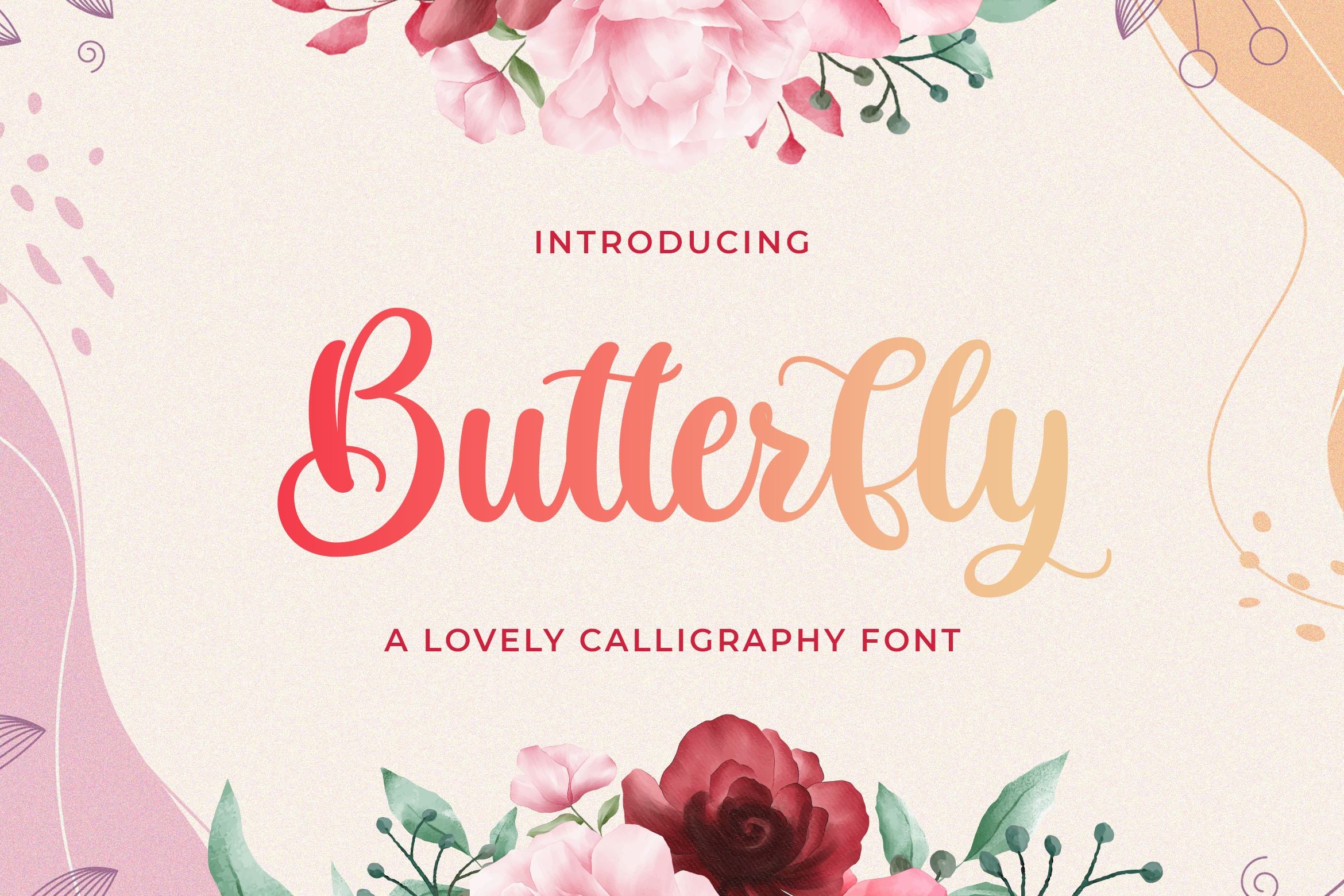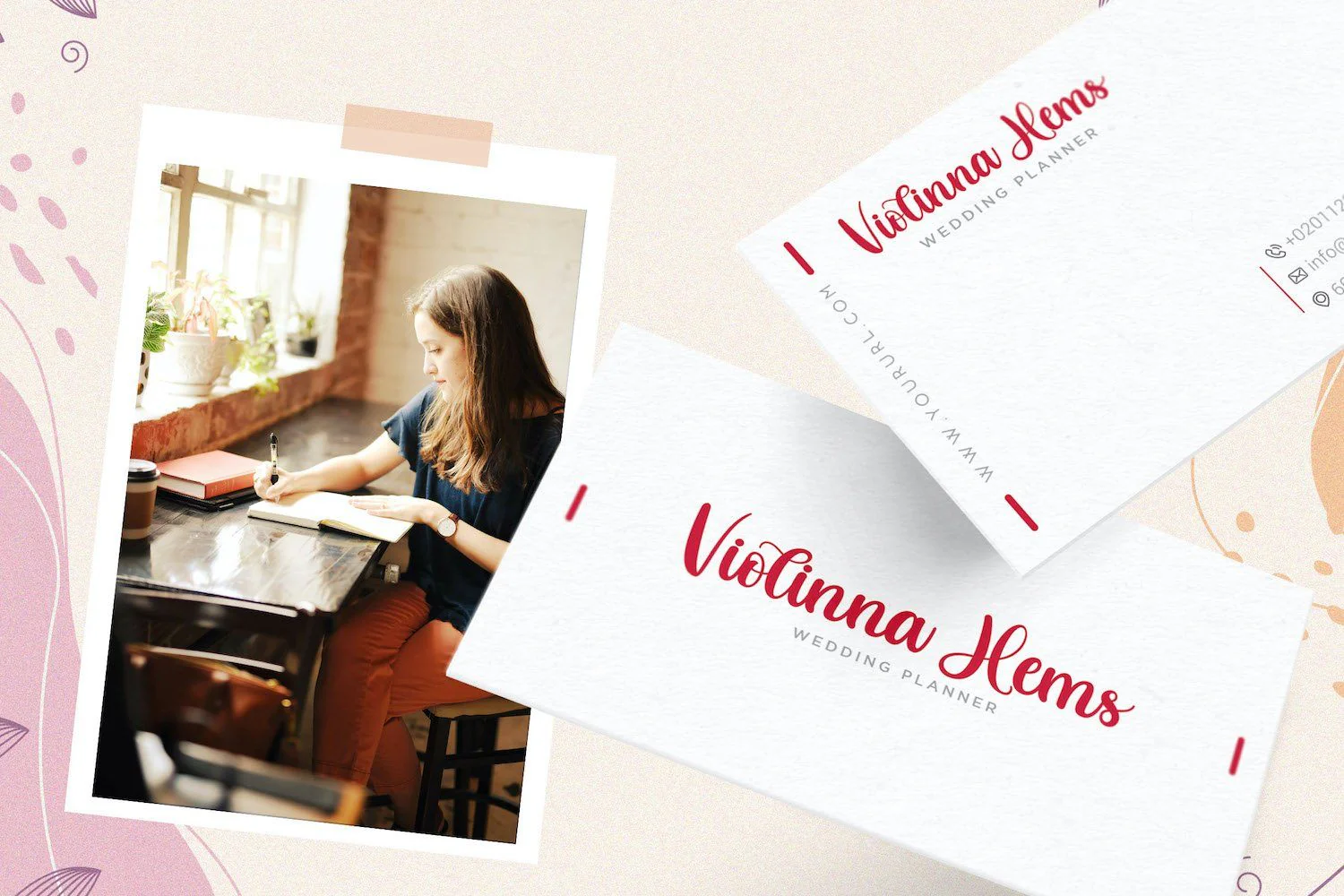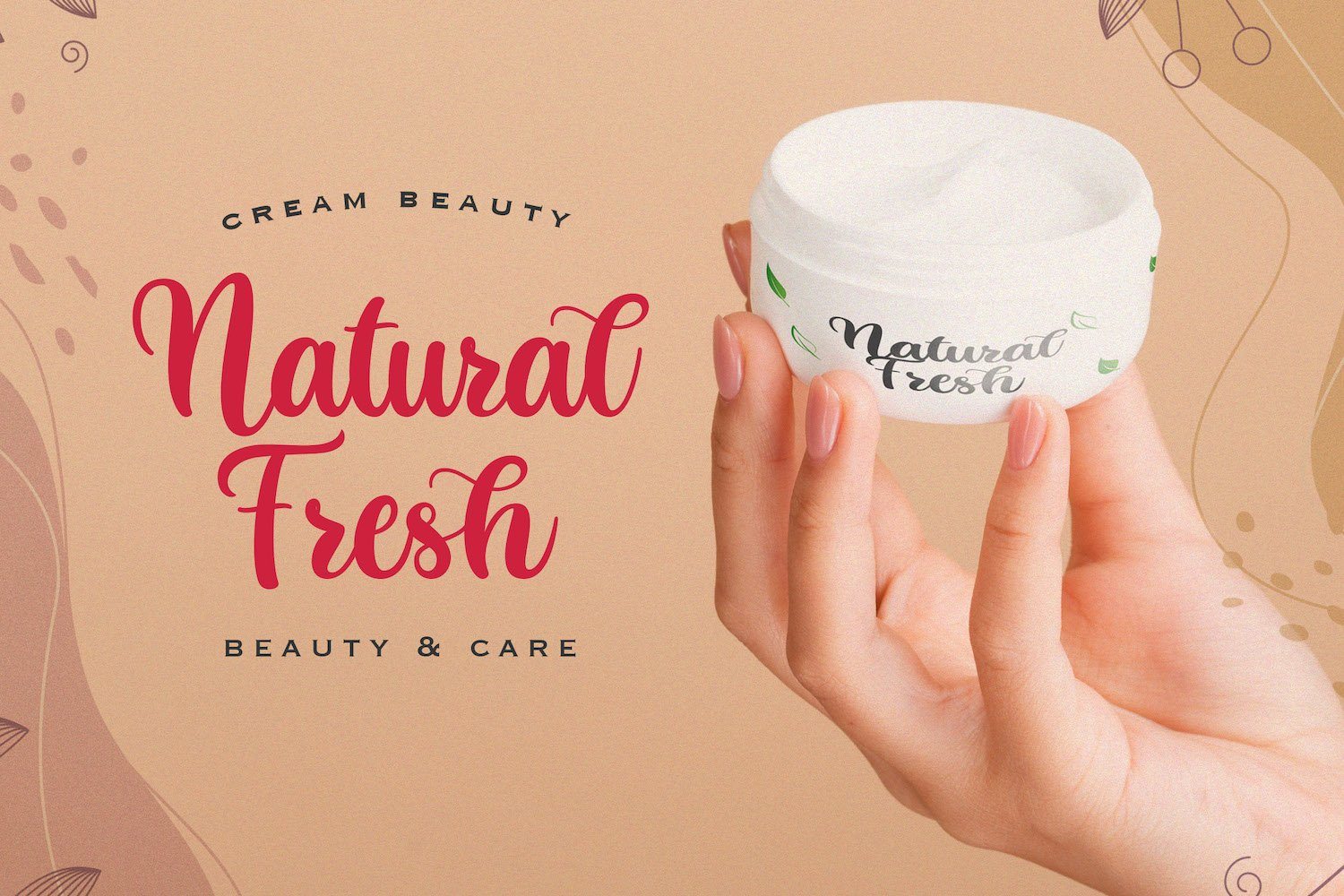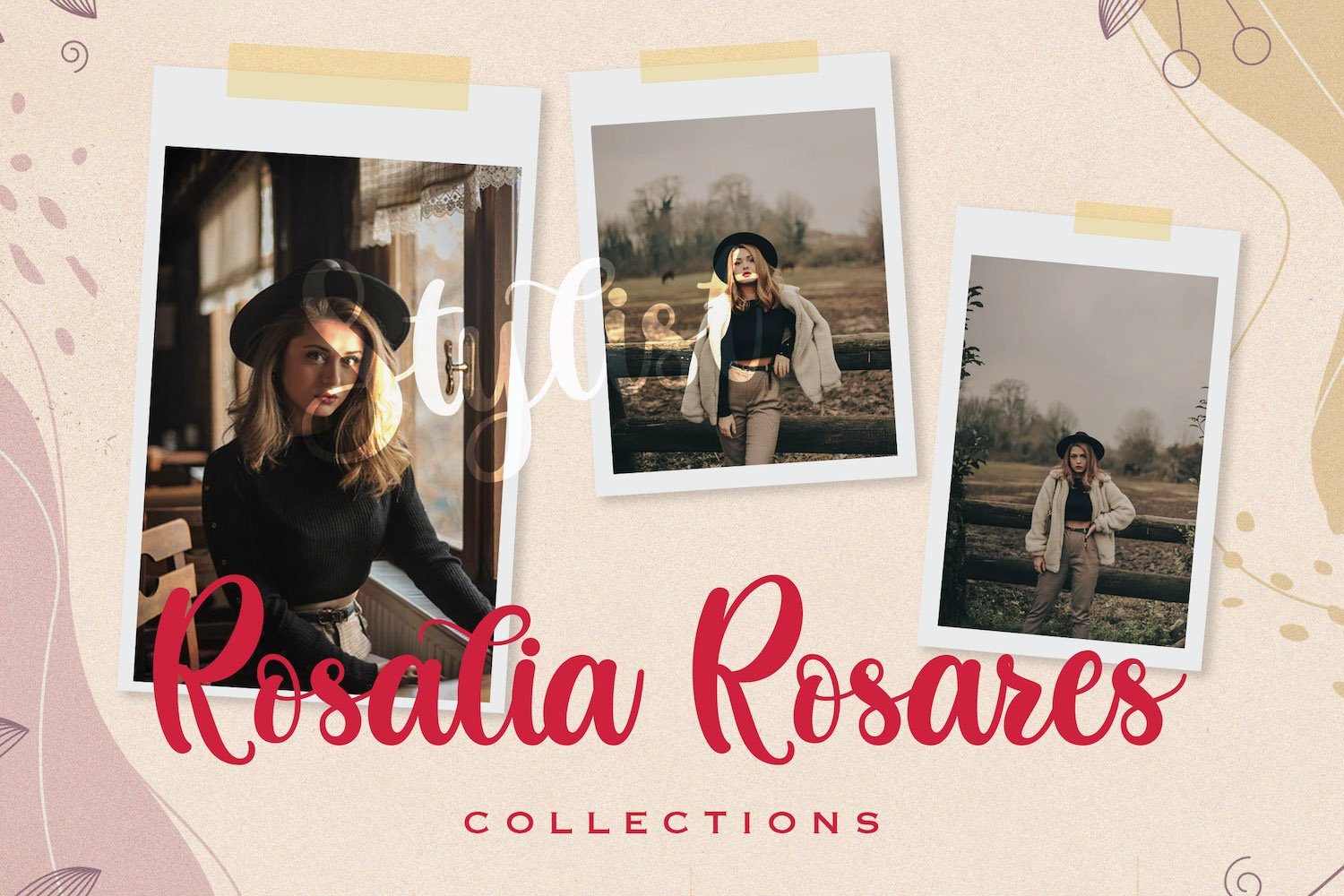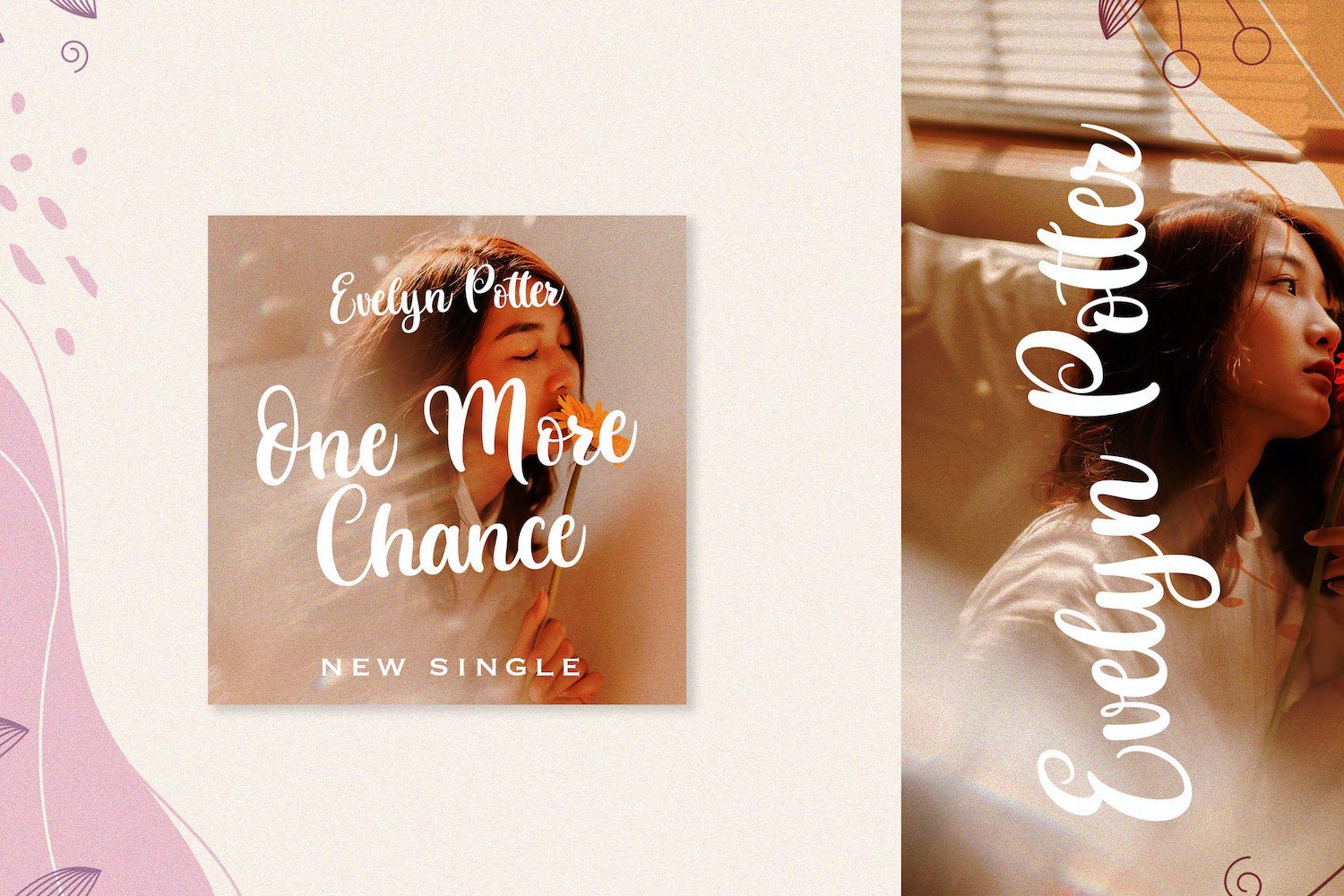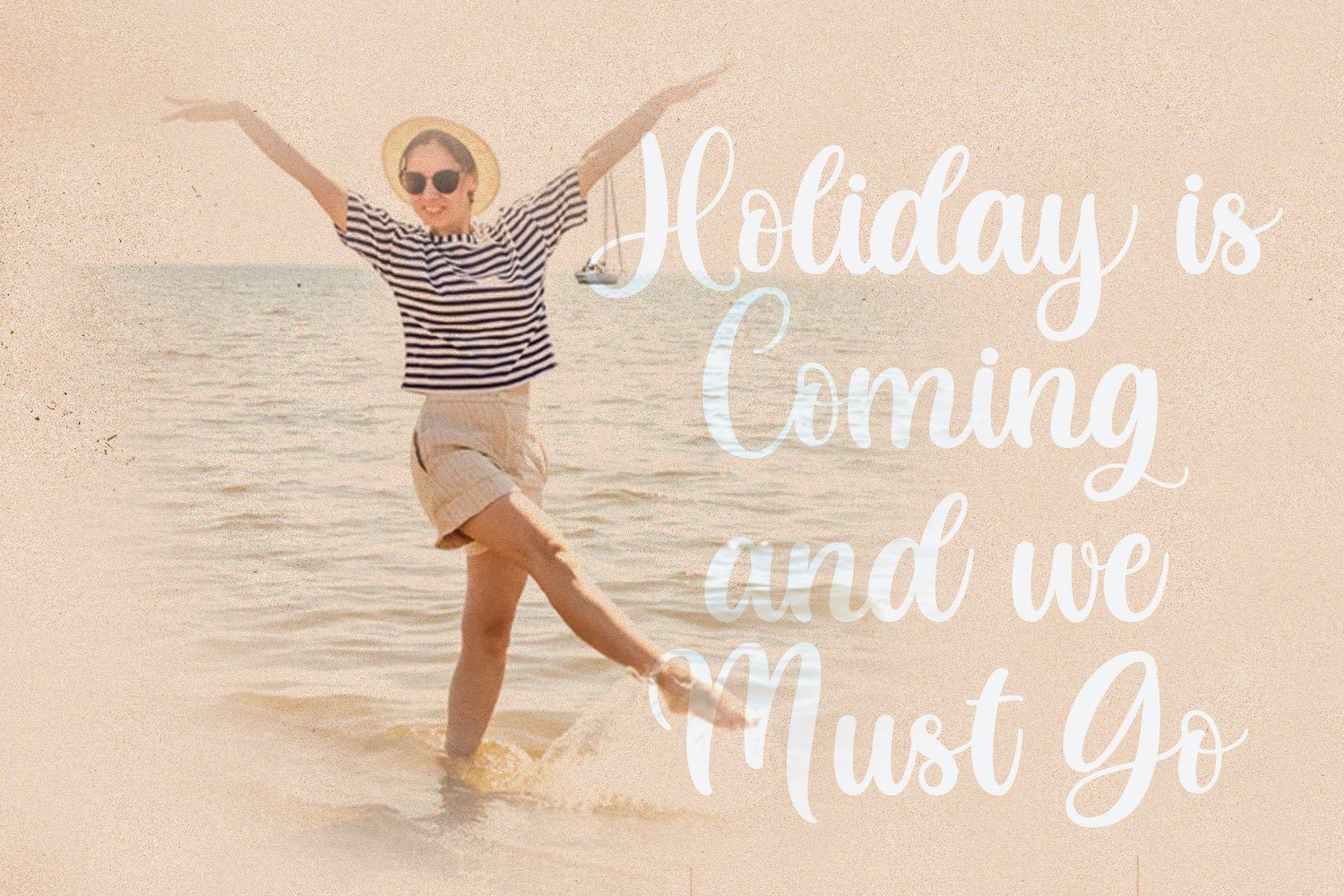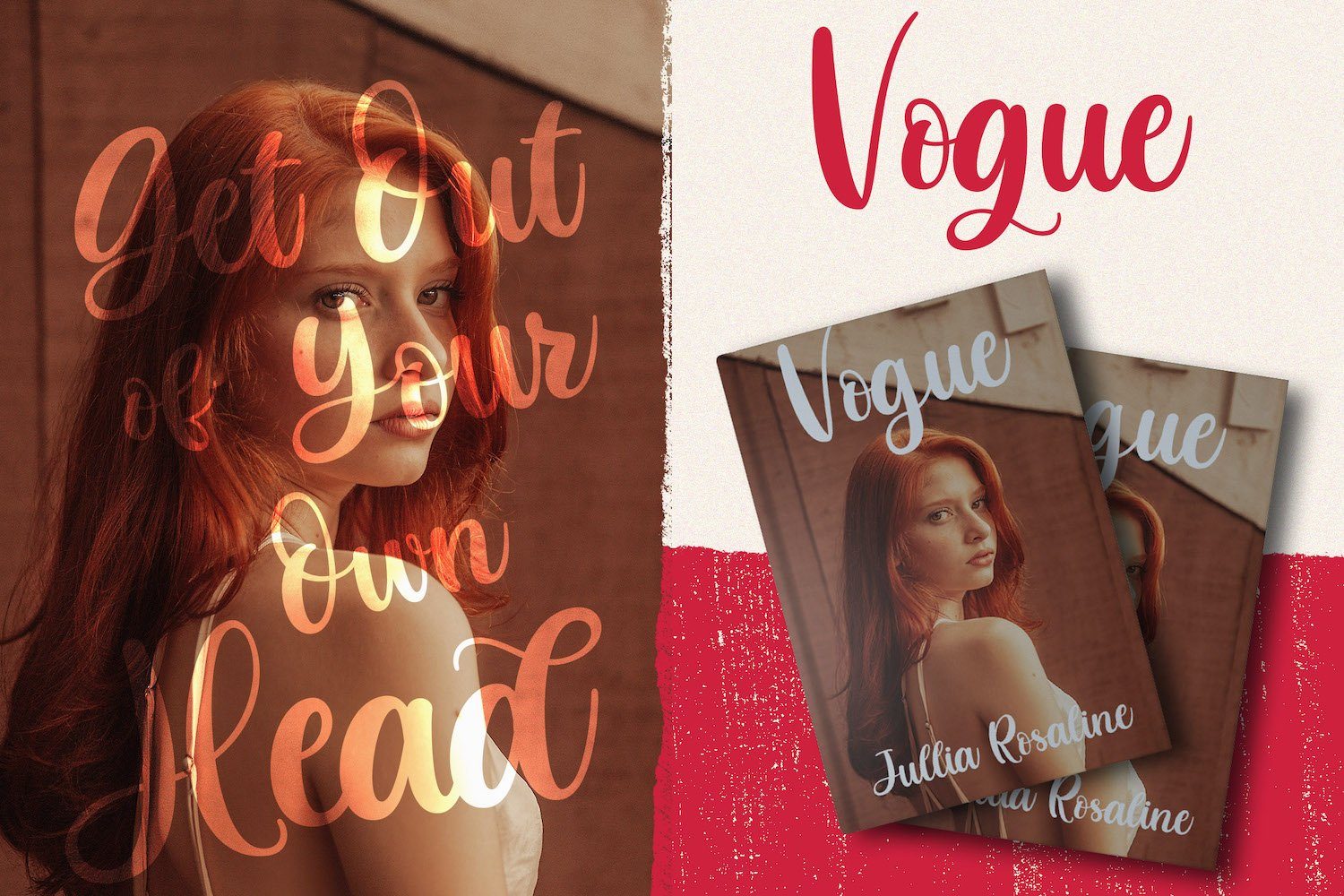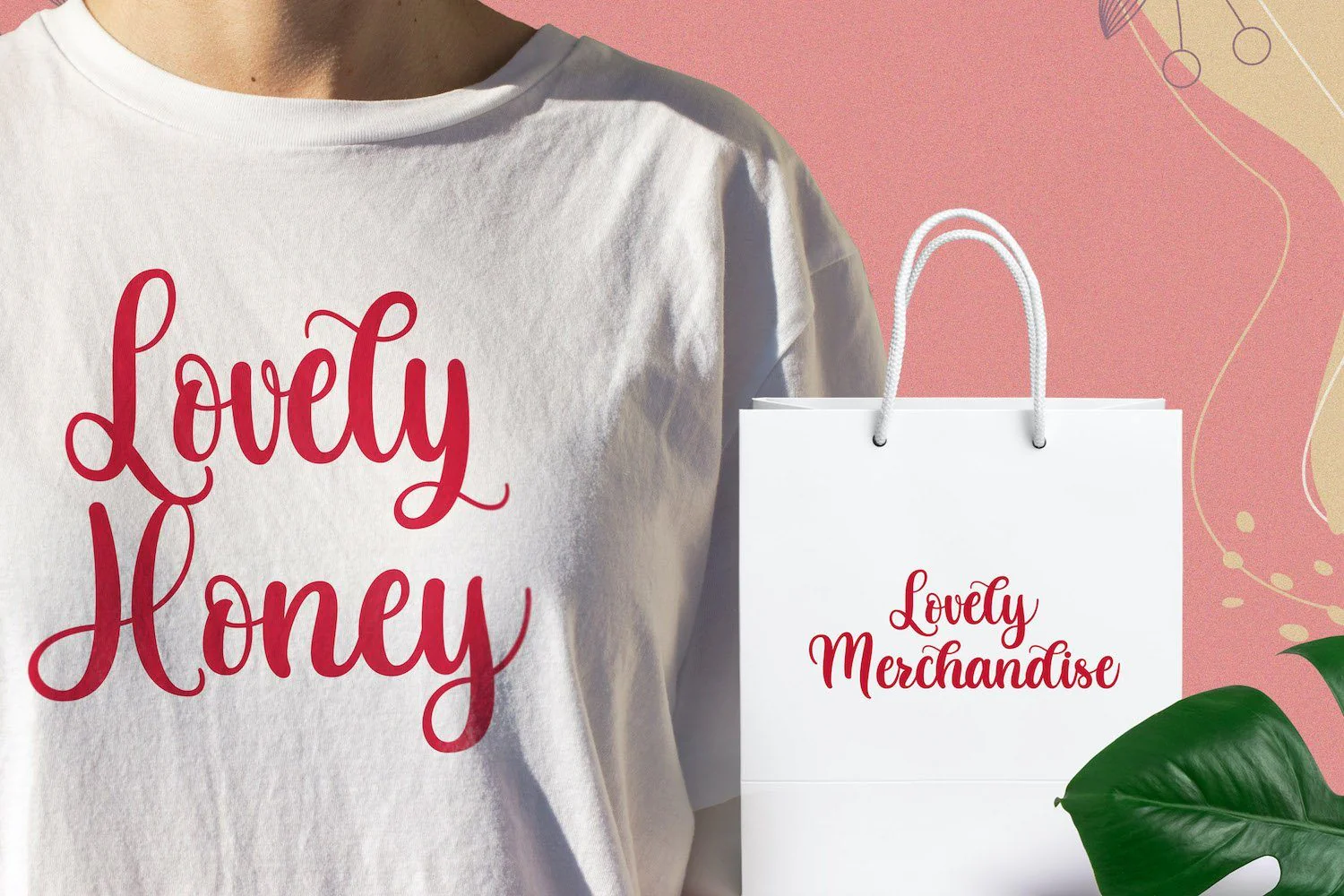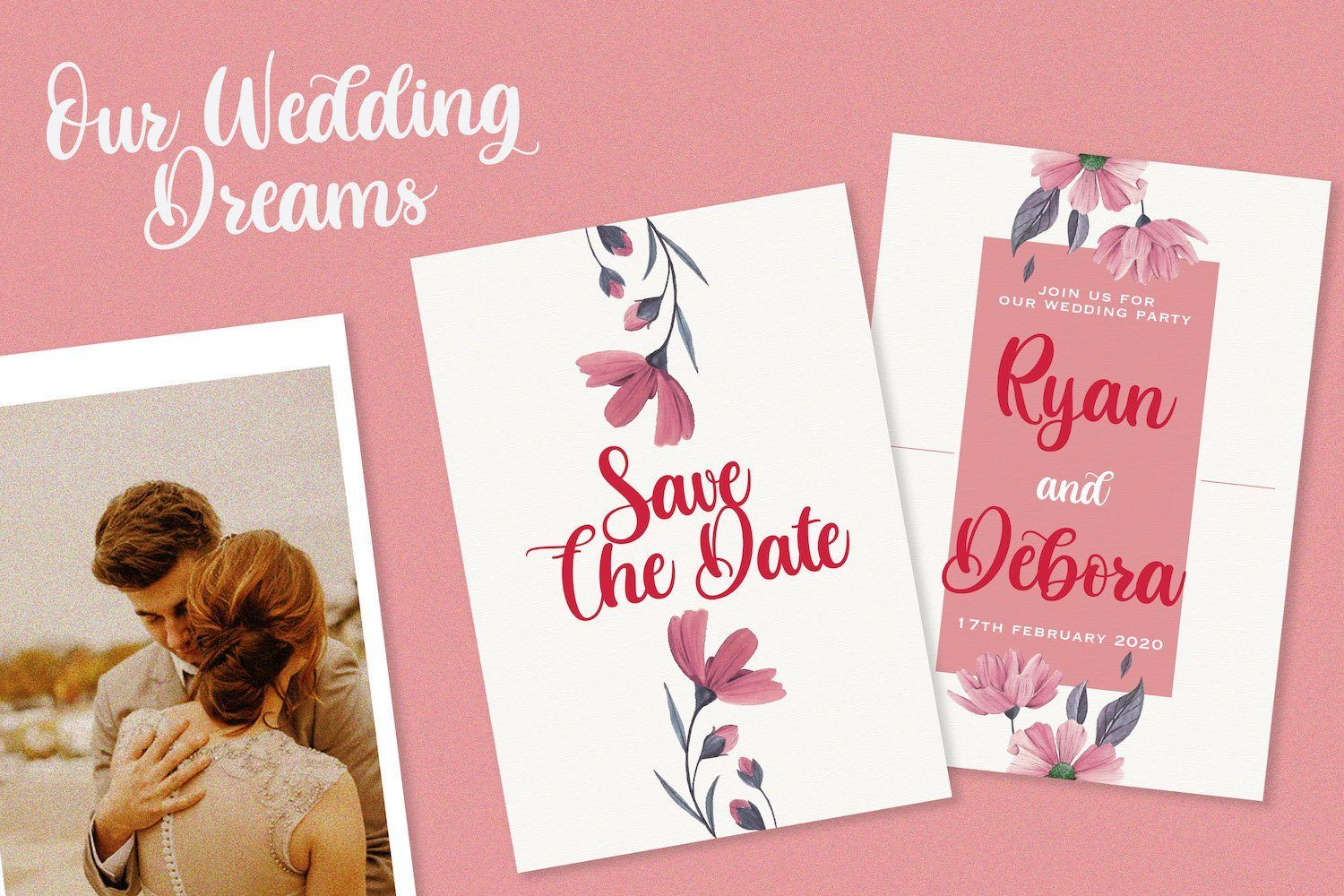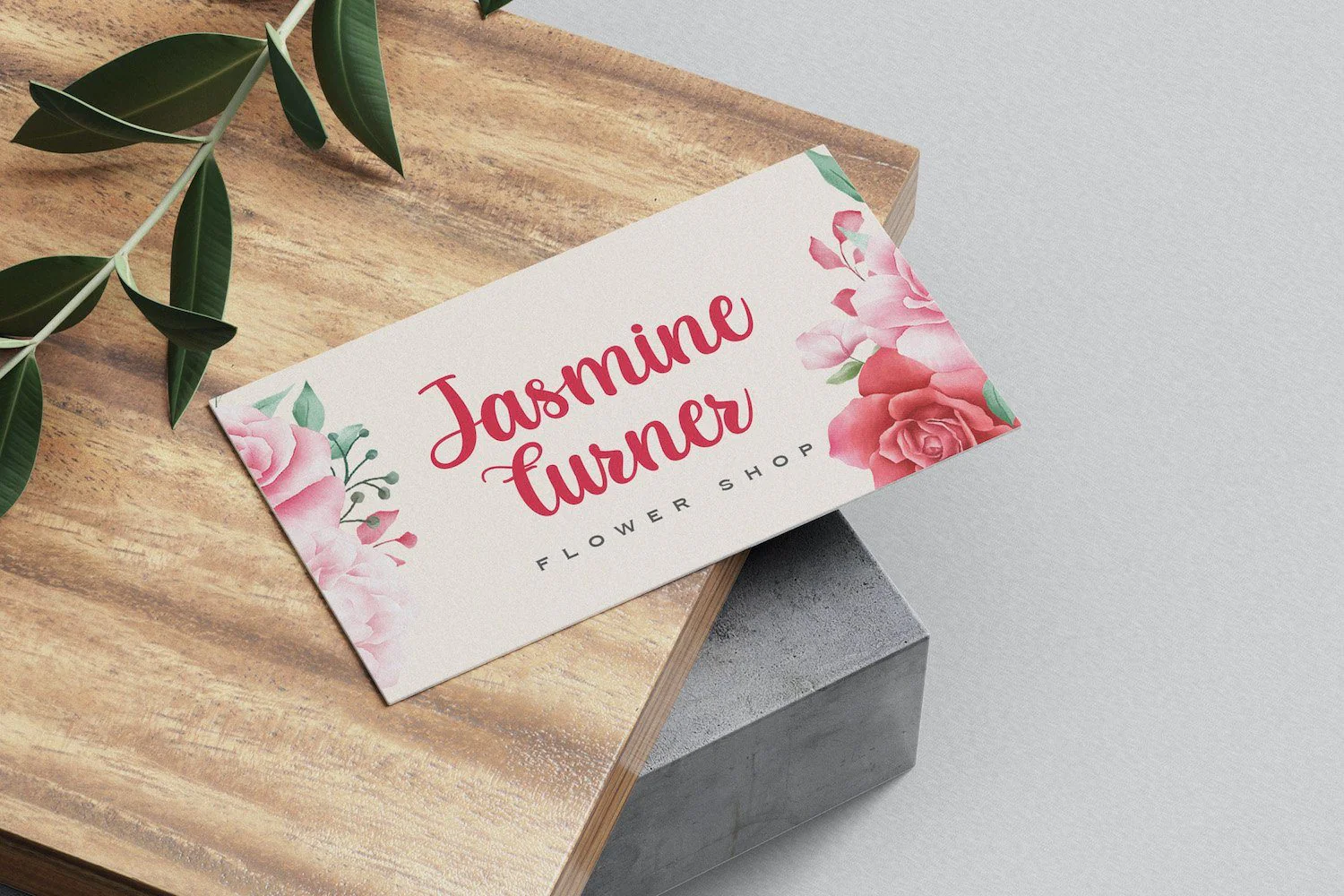
Butterfly - Lovely Calligraphy Font
Introducing Butterfly - Lovely Calligraphy Font
Butterfly is a delicate, elegant and flowing handwritten font. It has beautiful and well balanced characters and as a result, it matches a wide pool of designs. Add it to your most creative ideas and notice how it makes them come alive!
Introducing Butterfly - Lovely Calligraphy Font
Butterfly is a delicate, elegant and flowing handwritten font. It has beautiful and well balanced characters and as a result, it matches a wide pool of designs. Add it to your most creative ideas and notice how it makes them come alive!